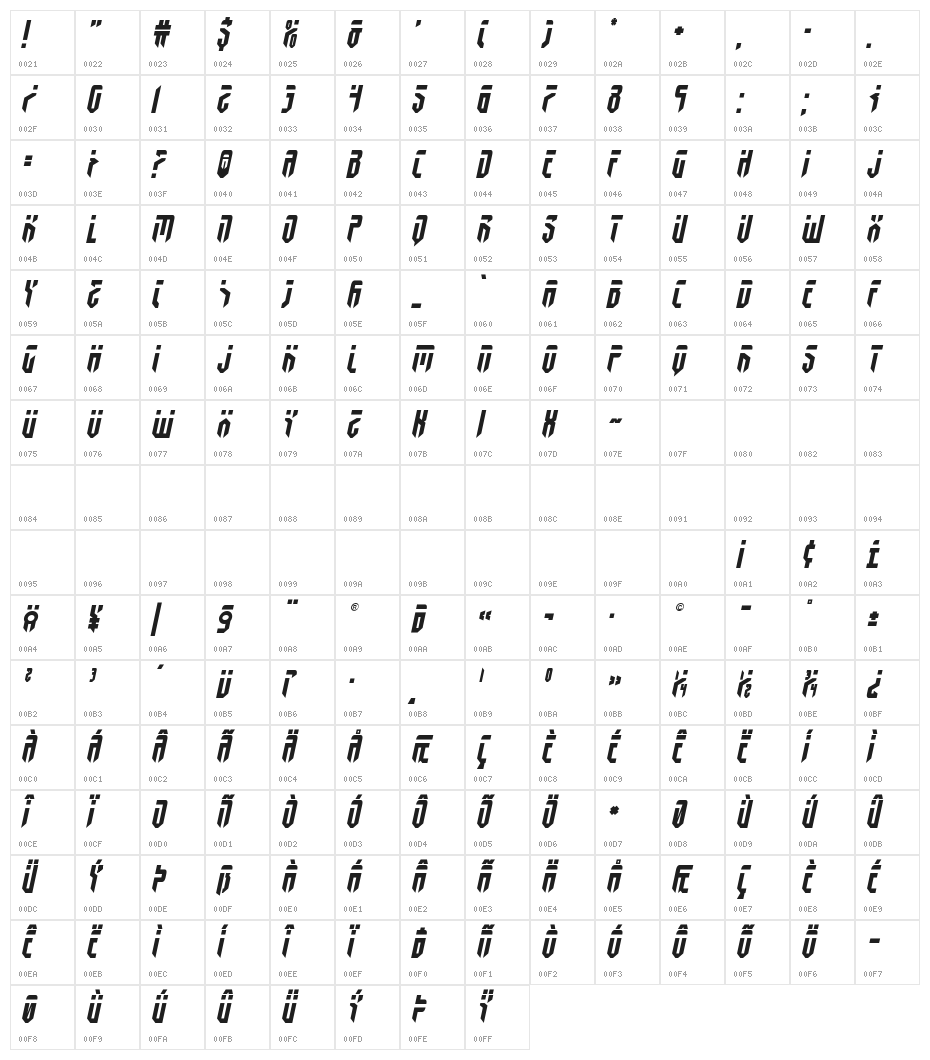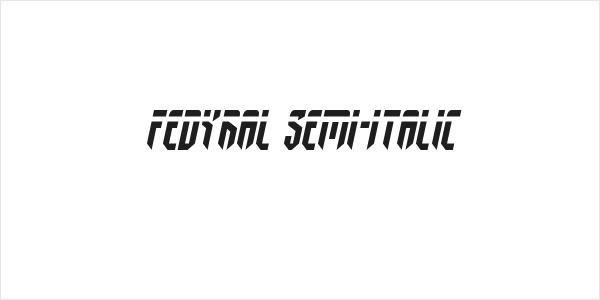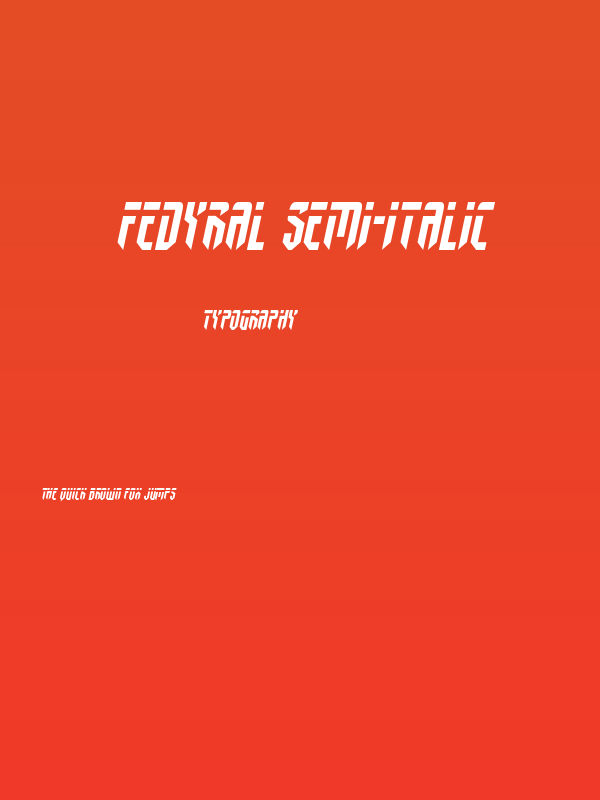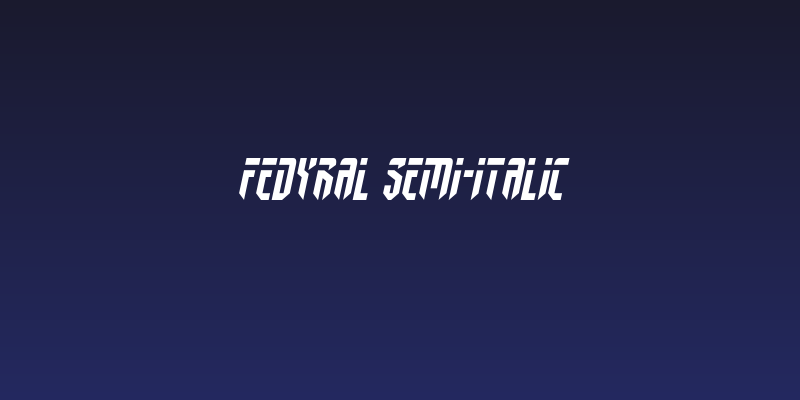
Fedyral Semi-Italic Font
Fedyral Semi-Italic Description
This font features a bold and dynamic design with sharp, angular lines and a distinct slant, giving it a futuristic and aggressive appearance. The uppercase and lowercase letters maintain a consistent style, with each character exhibiting a unique geometric form. The numbers and special characters follow the same angular and slanted design, ensuring uniformity across all glyphs. The font's strong presence and modern aesthetic make it suitable for attention-grabbing headlines and impactful designs.
| Proposed Projects | Ideal for sci-fi themed projects, video game titles, sports branding, and dynamic posters. |